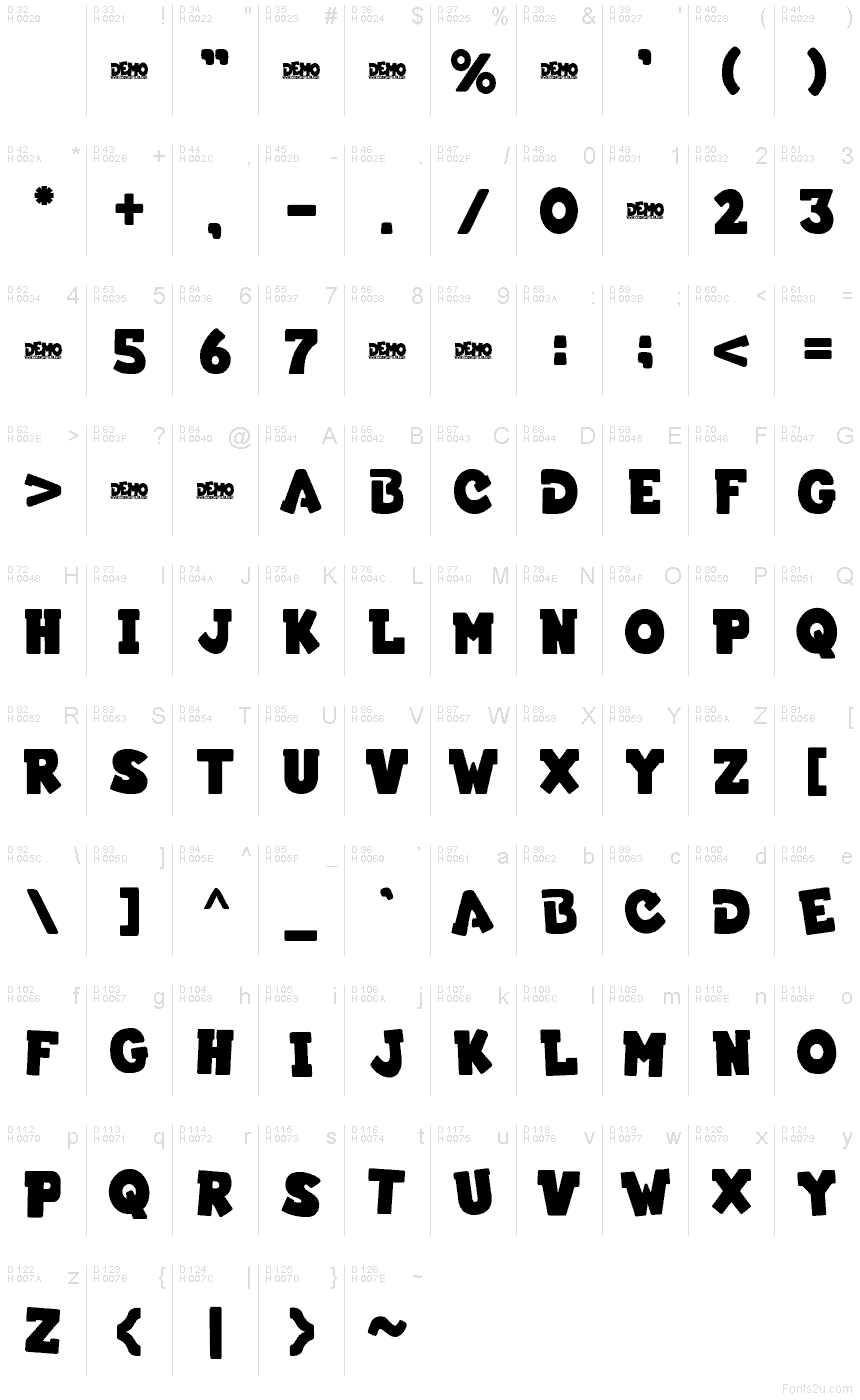
Memsmark! Demo
Memsmark! font by CconceptLab is a free bold cartoon display font. It stands out with chunky, cut-paper shapes, tight rhythm, and playful angles that feel hand-snipped rather than plotted. The letters swell and lean with a comic bounce, giving headlines an inky, high-impact presence without losing readability.
Using Memsmark!, you’ll get instant personality for kids’ logos, snack packaging, YouTube thumbnails, toy branding, party invitations, and comic headers. The dense black forms punch through busy backgrounds and hold up at small sizes, while the quirky contours keep big titles lively. Pair this free font with a clean rounded sans for body copy, or let it shout solo with generous tracking for extra pop.
MEMSMARK!
Available in uppercase only.